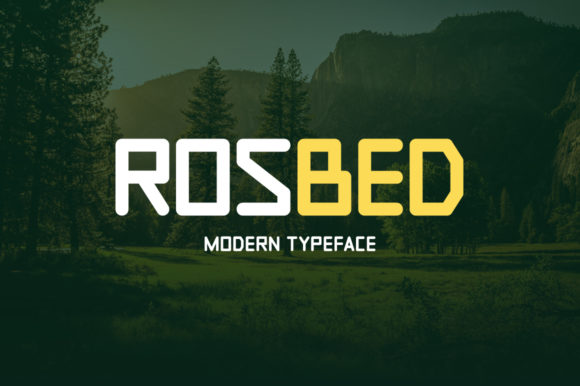
Discover the captivating allure of Rosbed, a modern display font that will ignite your creativity and transform your designs. This enchanting font, crafted with meticulous care by Instagram Fonts, is a masterpiece that will elevate your projects to new heights.
Step into a realm of elegance and charm, where Rosbed's graceful curves and captivating glyphs dance across your screen. This font is a symphony of visual delight, adding a touch of sophistication and allure to every word you write. Whether you're designing logos, invitations, or social media posts, Rosbed promises to enchant and inspire.
Rosbed is more than just a font; it's an artistic expression that captures the essence of timeless beauty. Its versatility knows no bounds, making it the perfect choice for a wide array of design projects. Imagine the impact Rosbed will have on your invitations, adding a touch of magic to your special moments. Your social media posts will come alive with Rosbed's vibrant personality, leaving a lasting impression on your followers.
But it's not just about aesthetics; Rosbed is also a font of unparalleled functionality. Its crisp lines and clear legibility ensure that your message is conveyed with clarity and impact. Whether you're crafting a captivating website or a persuasive presentation, Rosbed will amplify your words and captivate your audience.